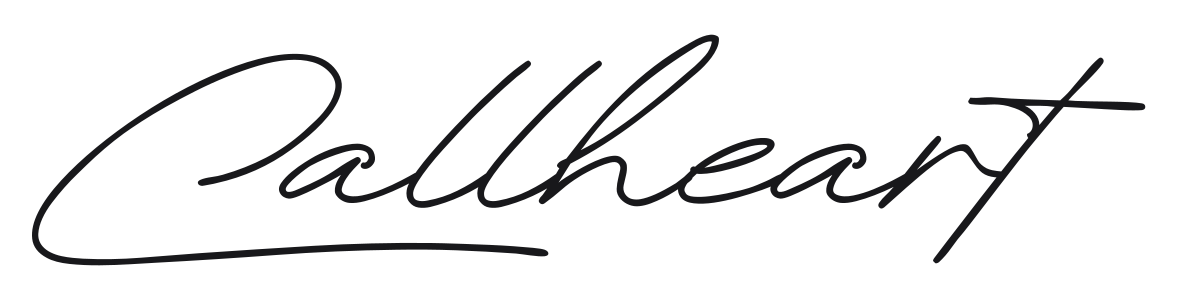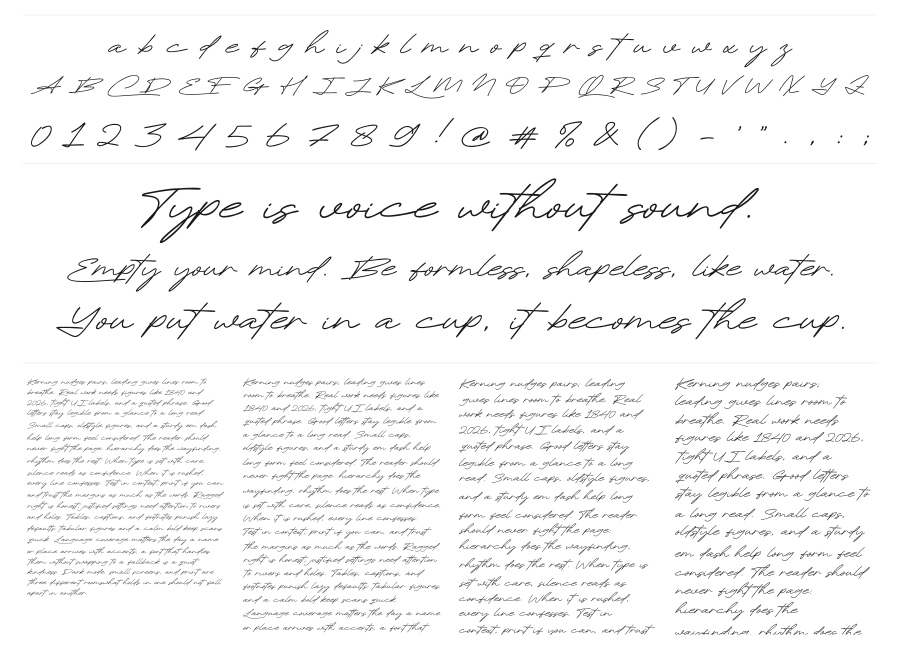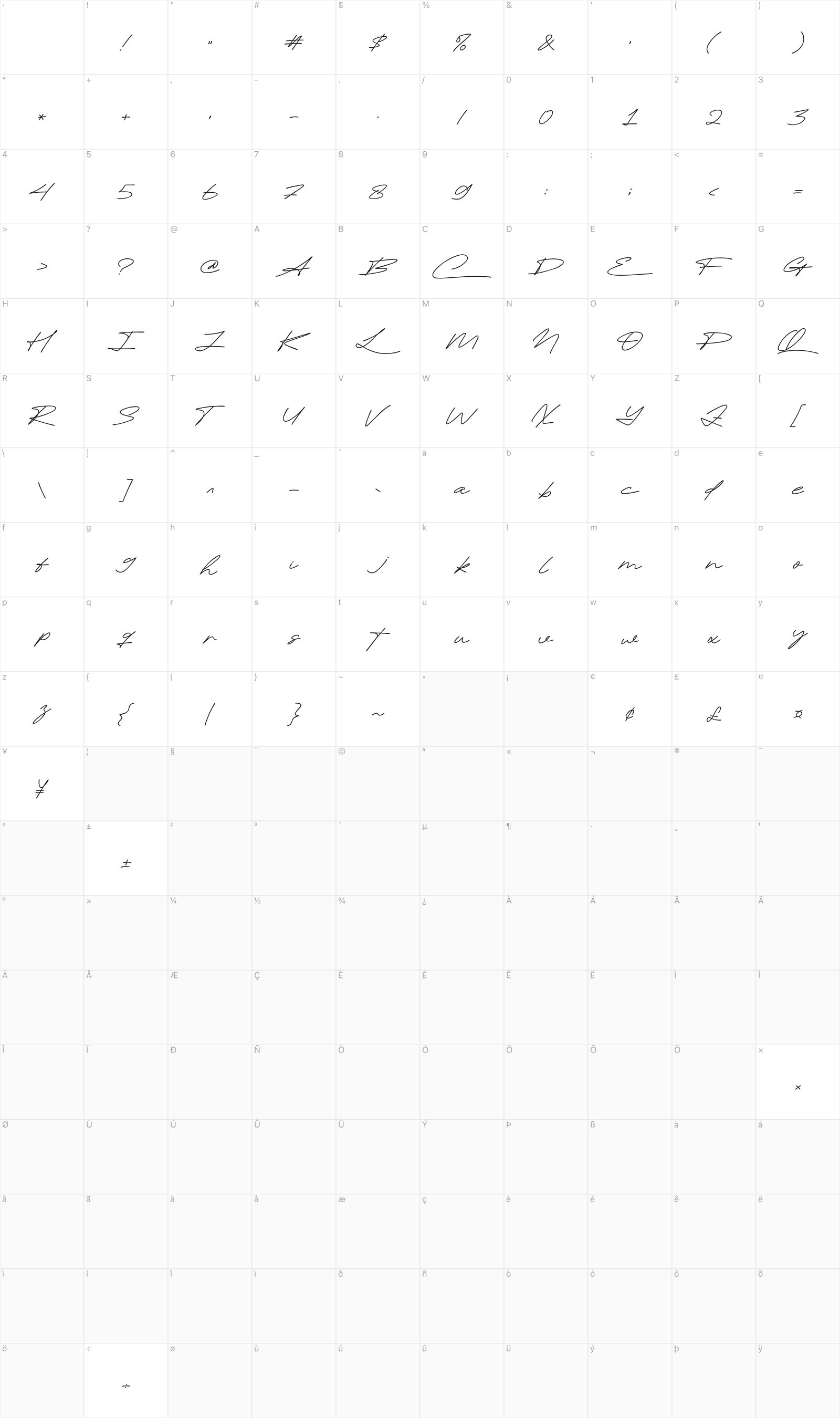
Callheart
Callheart is a flowing casual script that mimics the look of a relaxed, personal signature. Its thin monoweight strokes and long looping ascenders give it an effortless, intimate quality. It works best at large sizes where the continuous rhythm of the connected letters can breathe.